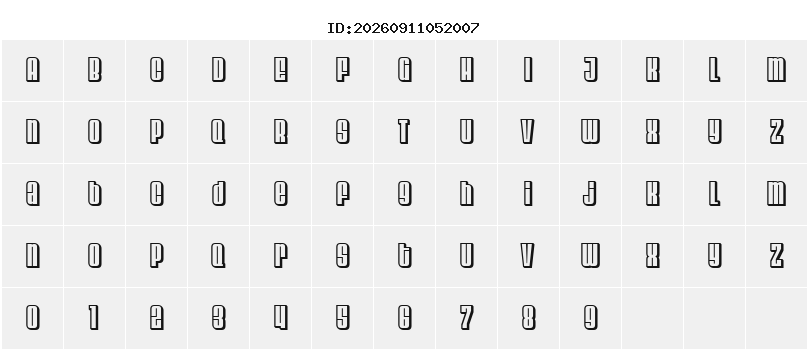
• Font Name: Velvenda Chill
• Designer: Ray Larabie
• Description: Inspired by a font from the 1960's called Stark. Larabie Fonts is able to offer unique free fonts through the generous support of visitors to the site. Making fonts is my full-time job and every donation, in any amount, enables me to continue running the site and creating new fonts. If you would like to support Larabie Fonts visit www.larabiefonts.com for details.
Velvenda Chill.ttf is a modern, elegant sans-serif font designed for ultimate readability and visual harmony. Perfect for branding, headlines, web design, and print materials.